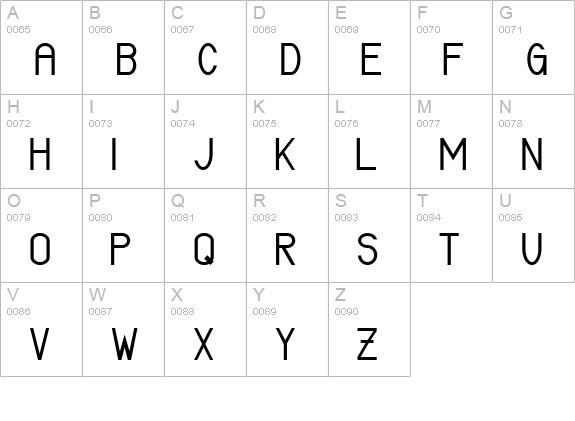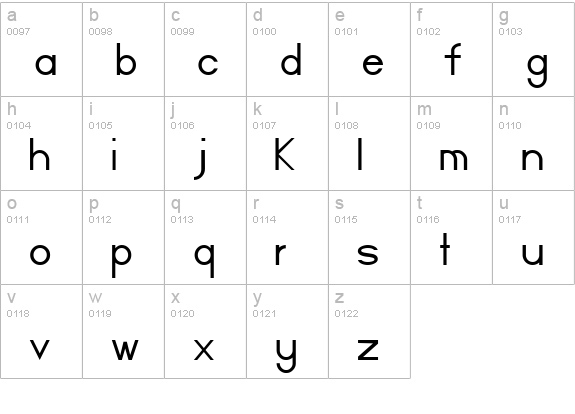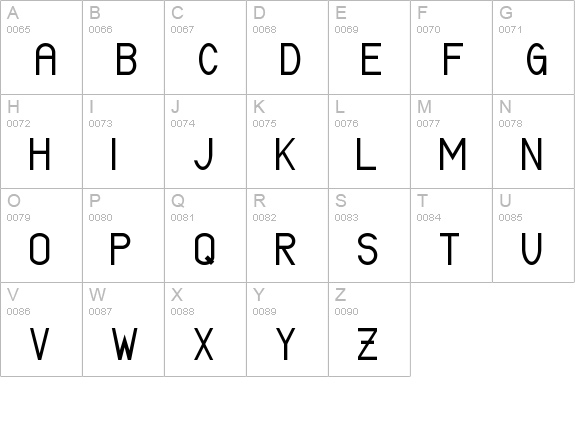
Certified font is a modern and sophisticated typeface that exudes elegance and professionalism. Its clean lines and sleek design make it perfect for a wide range of design projects, from branding to editorial design. The Certified font comes in a variety of weights and styles, allowing for versatility and creativity in your typography. Whether you're designing a sleek corporate logo or a stylish magazine layout, Certified font is sure to make a statement. The best part? Certified font is available for free download at FontsMarket.com. This means you can easily access this high-quality typeface without breaking the bank. Don't miss out on the opportunity to elevate your design projects with the Certified font - download it today and start creating stunning visuals that stand out from the crowd.